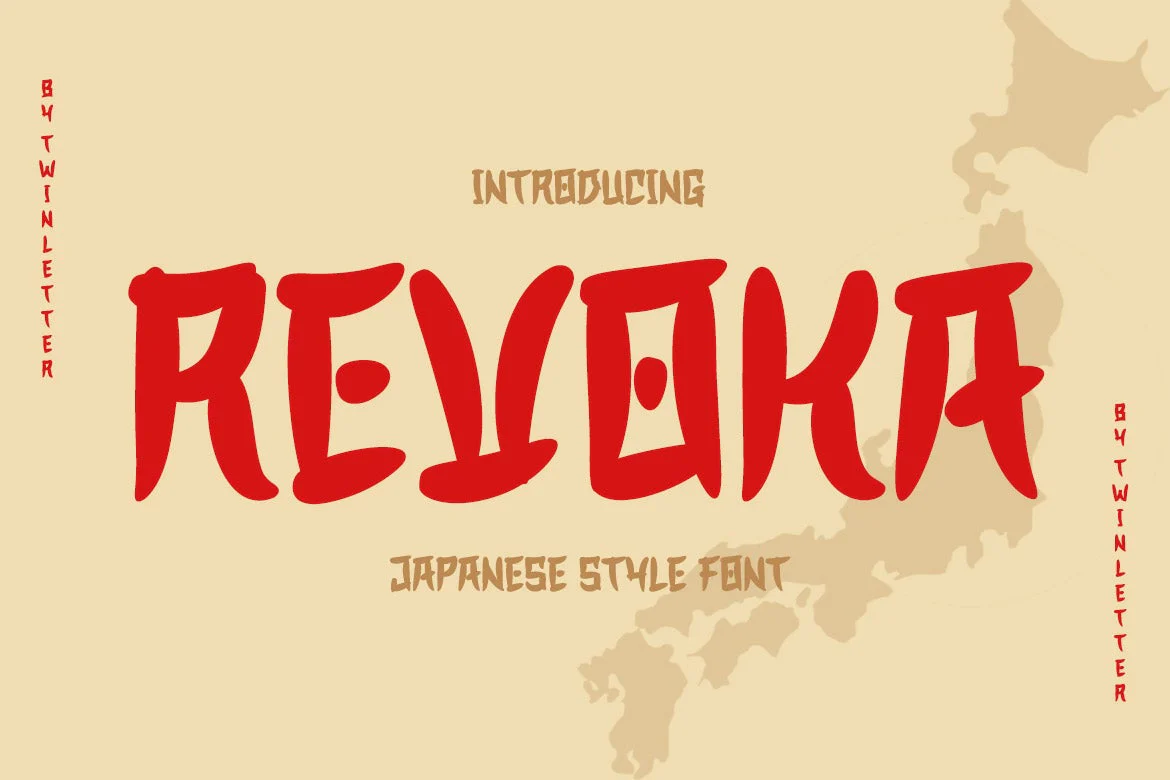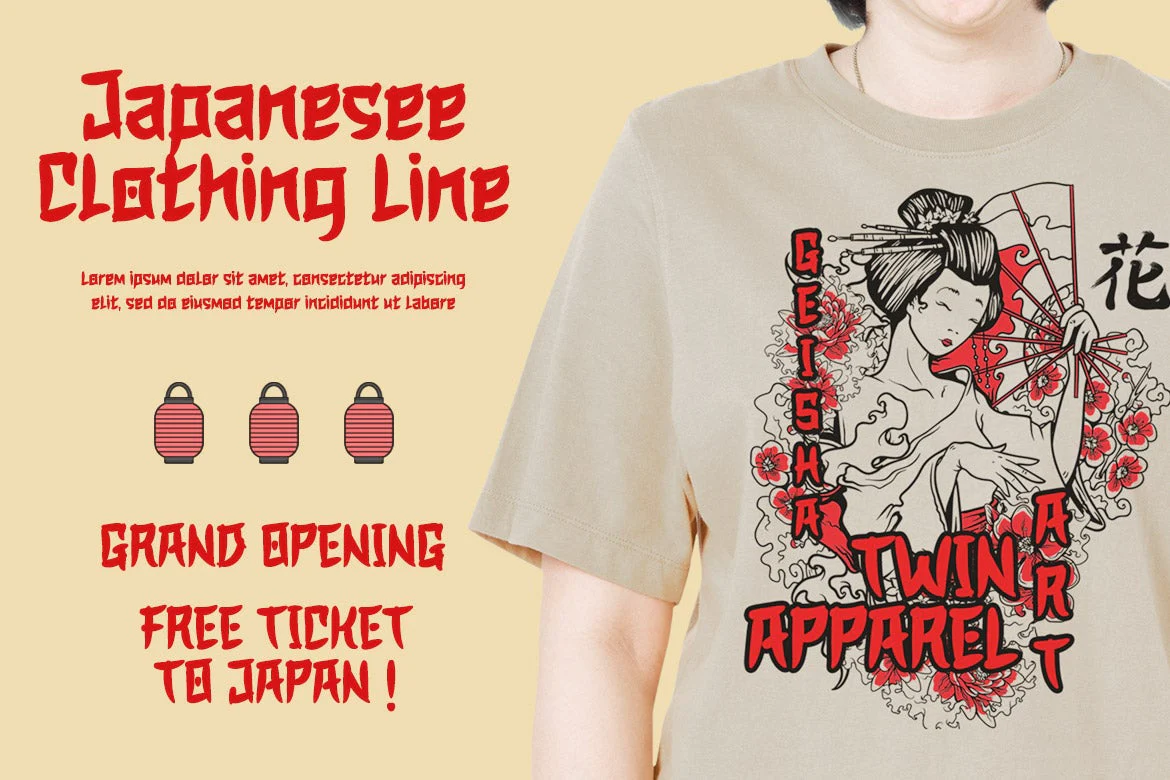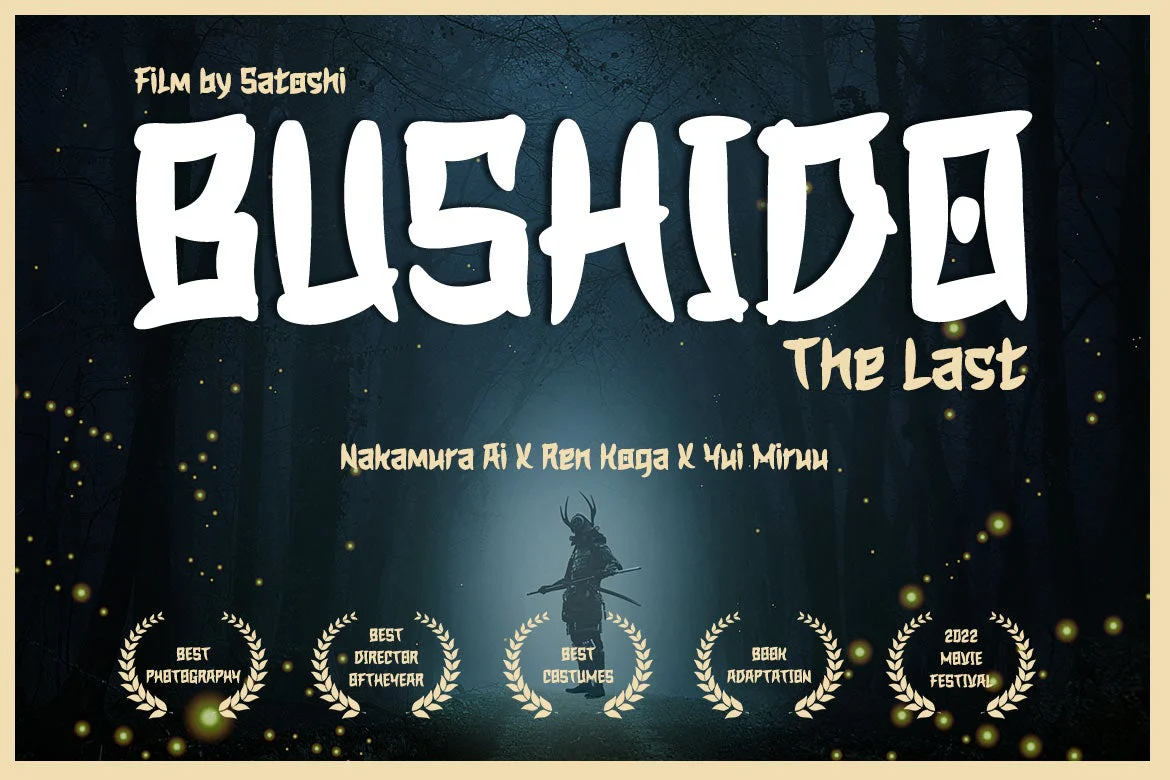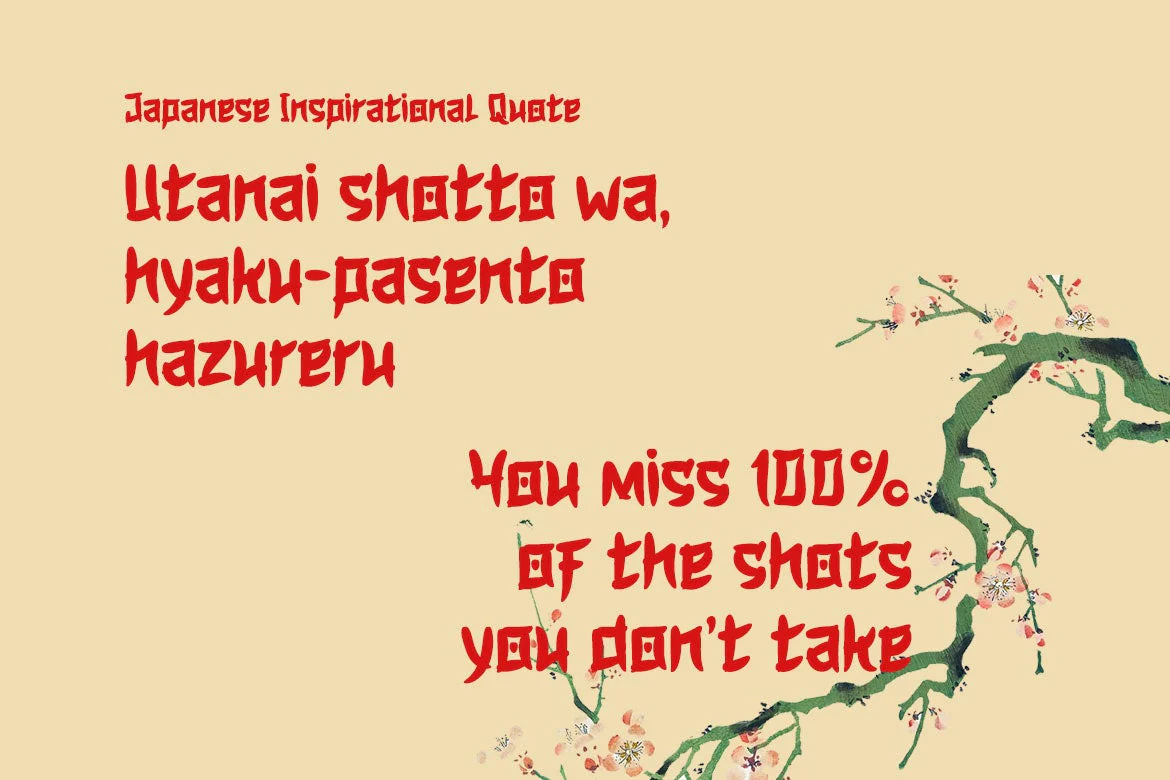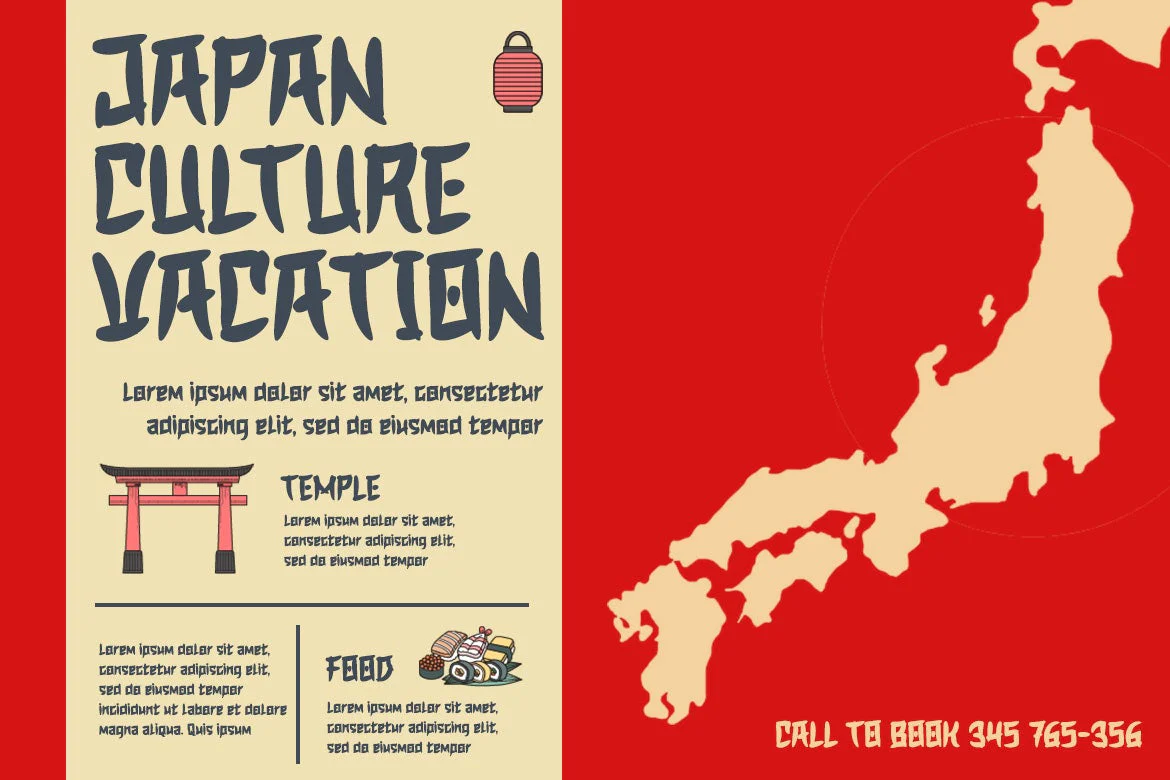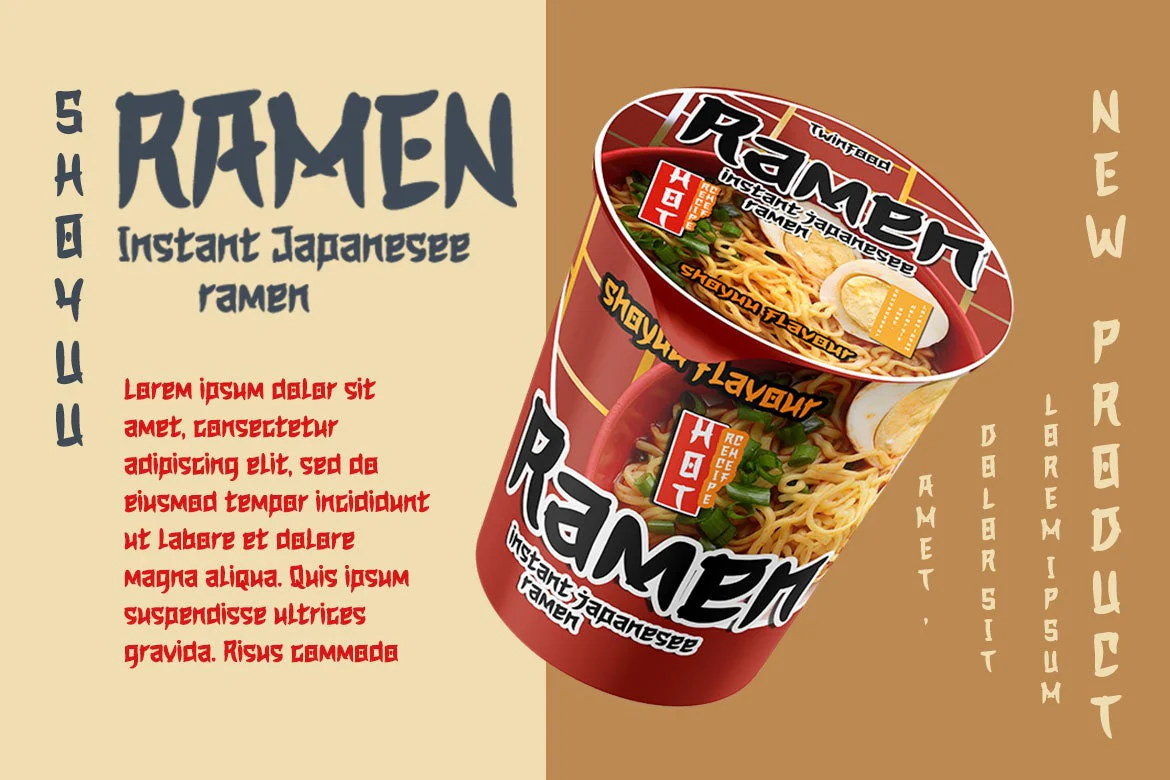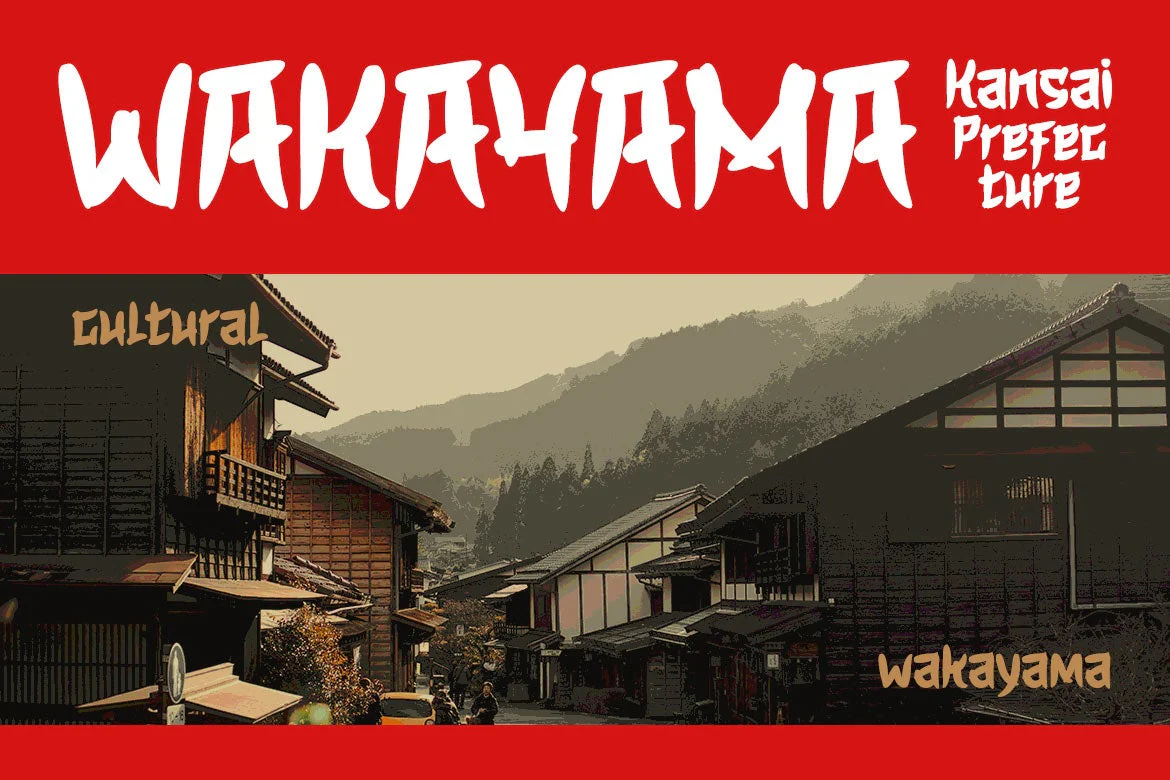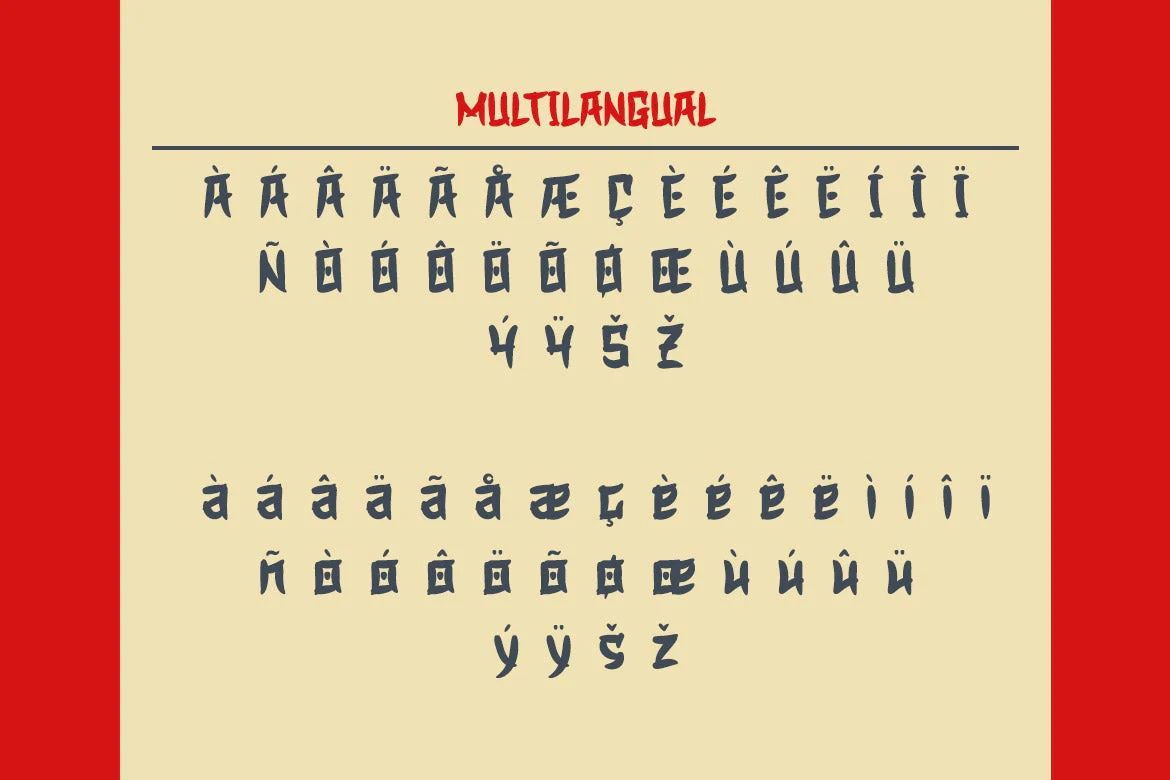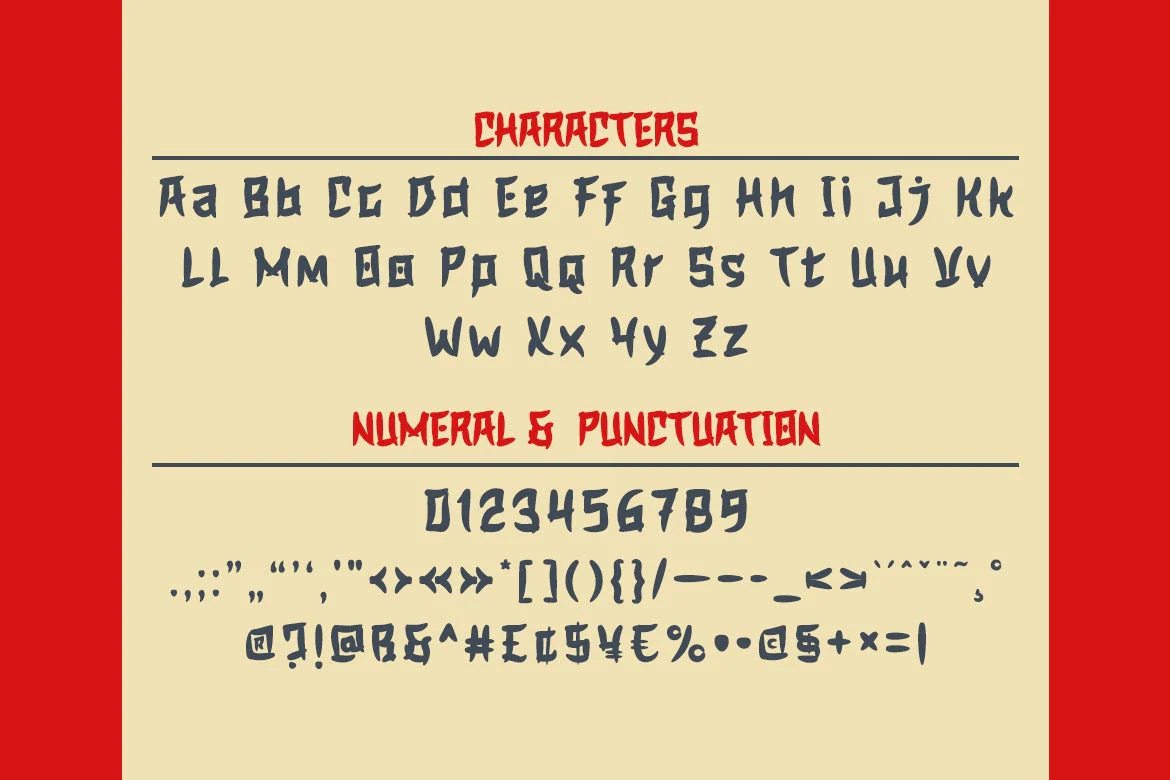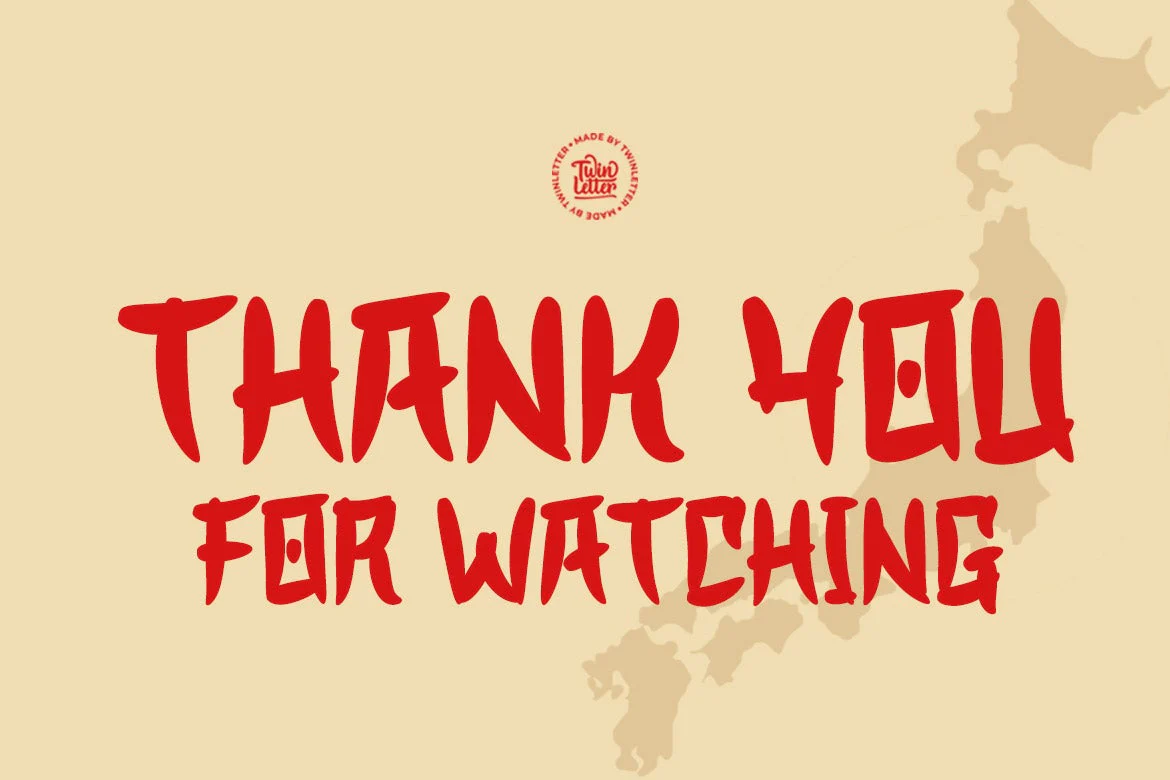
REVOKA - Japanese style font
Revoka is a display typeface with the notion of an Asian font with unique and modern traits.
Fonts with unusual shapes will brighten up your project and give it a unique pattern, giving it an attractive, appealing, and natural feel.
Logotypes, food banners, branding, brochure, posters, movie titles, book titles, quotes, and more may all benefit from this font.
Of course, using this font in your various design projects will make them excellent and outstanding; many viewers are drawn to the striking and unusual graphic display.
Start utilizing this typeface in your projects to make them stand out.
Revoka is a display typeface with the notion of an Asian font with unique and modern traits.
Fonts with unusual shapes will brighten up your project and give it a unique pattern, giving it an attractive, appealing, and natural feel.
Logotypes, food banners, branding, brochure, posters, movie titles, book titles, quotes, and more may all benefit from this font.
Of course, using this font in your various design projects will make them excellent and outstanding; many viewers are drawn to the striking and unusual graphic display.
Start utilizing this typeface in your projects to make them stand out.